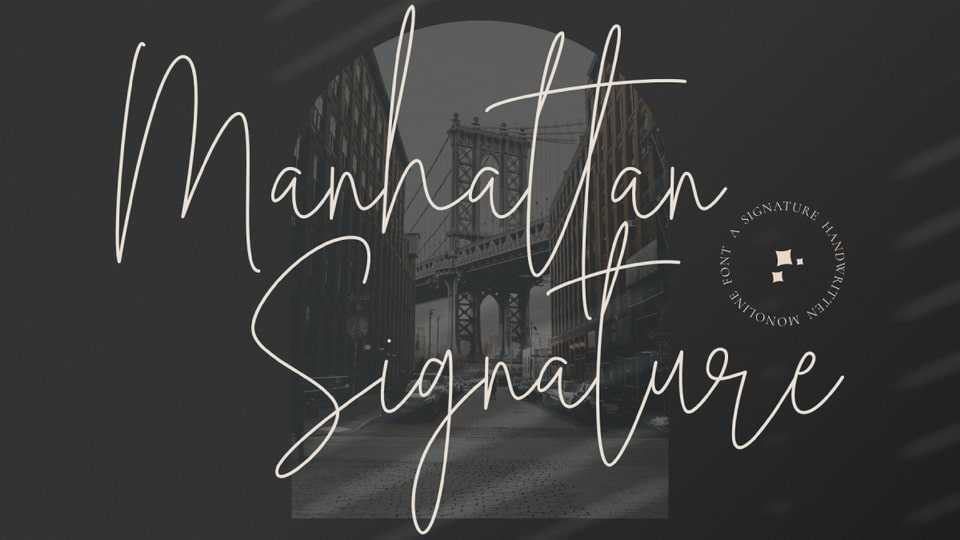
Manhattan Signature Font › Fontesk
Download Manhattan Signature font, a thin and elegant script typeface with monoline stylish. Manhattan Signature font will give instant class and style to your work.